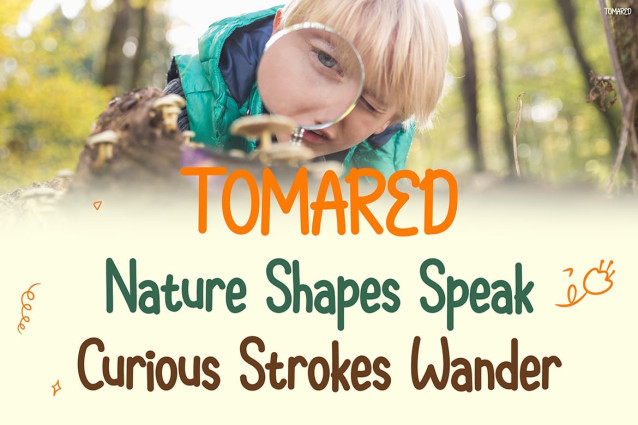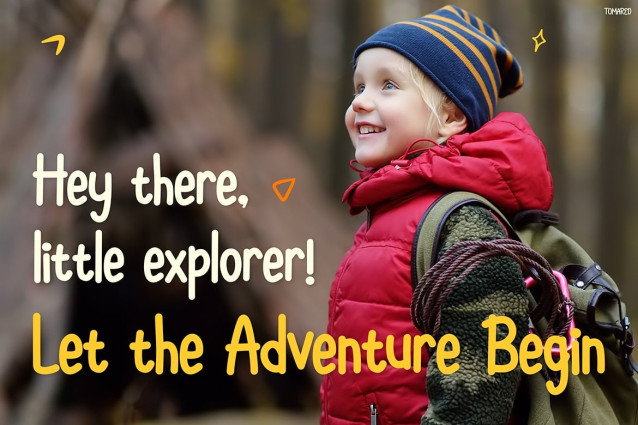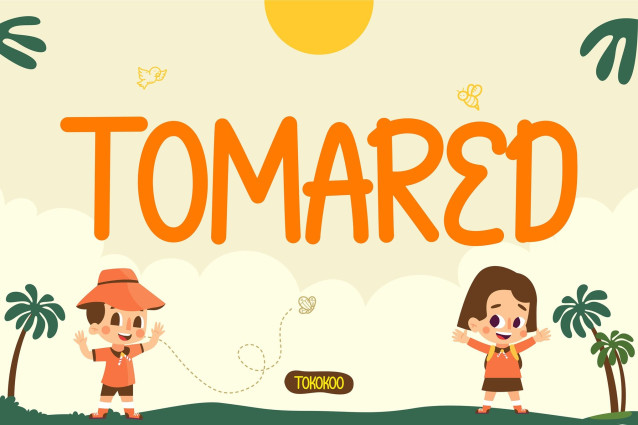
Tomared Font
Tomared Font brings a joyful and friendly impression from the very first glance. Moreover, its hand-drawn look creates a natural, charming flow that feels welcoming and full of imagination. The rounded shapes make each letter look soft and expressive. Additionally, the organic strokes add movement, so every word feels alive and filled with kid-friendly energy. Because of this lively character, Kids Font TOMARED becomes a unique font that blends warmth, clarity, and playful storytelling.
TOMARED is also special because it keeps a clean structure while still showing a whimsical vibe. Furthermore, the consistent spacing helps the text remain easy to read, even when used for longer sentences. However, the style never loses its fun personality, making it perfect for designs that need a balance between readability and creativity. Therefore, this font becomes a great choice for creators who want a cheerful typeface with strong visual charm.
Why This Font Works So Well
Kids Font TOMARED uses smooth curves that resemble real children’s handwriting. Additionally, the lines are soft and relaxed, which gives the text a natural, joyful feel. Meanwhile, the overall form stays steady, allowing the font to work for headlines as well as supportive text. In addition, the expressive details add character without making the design look cluttered.
Consequently, TOMARED fits many uses such as posters, school projects, kids’ event banners, product labels, or playful brand identities. Moreover, it carries an outdoor and adventure tone, which makes it ideal for nature-themed visuals. As a result, the font turns simple messages into warm, exciting stories that connect with kids and families.